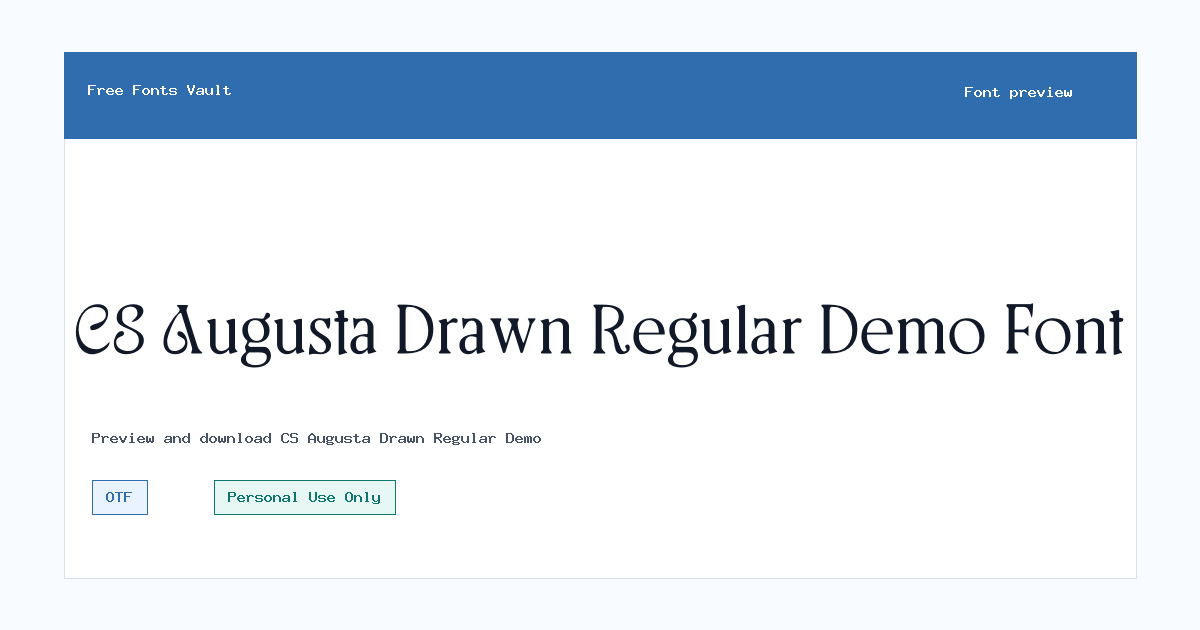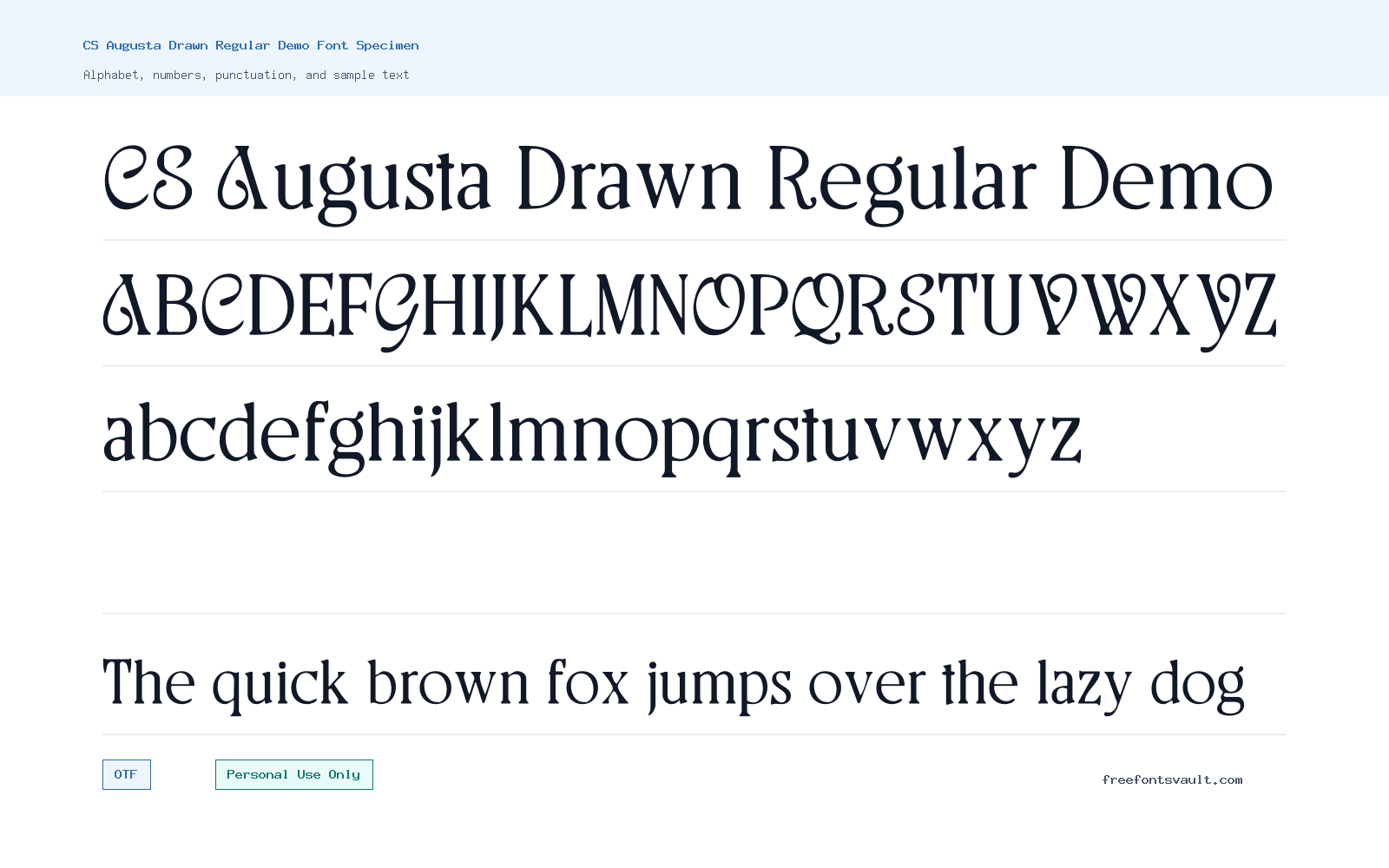
CS Augusta Drawn Regular Demo
CS Augusta Drawn Regular Demo font.
CS Augusta Drawn Regular Demo is a personal-use serif demo font with a hand-drawn feel. It is best suited for testing display ideas, short titles, logo drafts, posters, invitations, and visual mockups where a refined serif shape with a softer drawn edge can add character.
About CS Augusta Drawn Regular Demo
CS Augusta Drawn Regular Demo is an OTF font in a regular style and 400 weight. The name and license text identify it as a drawn serif demo, so the safest way to use it is as a display face rather than a long-reading text font. Its appeal is likely in the contrast between a traditional serif structure and a more handmade surface. That kind of design can work well when you want a headline to feel elegant but not too polished. Try it in larger sizes first, because drawn details usually become clearer when the letters have room to show their texture and rhythm.
For designers, this font is most practical in short settings: brand concept boards, logo sketches, packaging mockups, poster titles, social graphics, wedding or boutique-style layouts, and website hero text. Keep the wording concise and test the preview with the exact words you plan to use, especially if your project depends on tight spacing, initials, or all-caps settings. Demo fonts may have a limited character set or fewer typographic extras than a full retail family, so check punctuation, numbers, accents, and symbols before building a full layout around it. If you are preparing client work, paid branding, merchandise, advertising, or any other commercial output, treat the license limit seriously and obtain the proper commercial license from the rights holder.
- Drawn serif demo style, better for expressive display text than dense paragraphs.
- Single regular variant, making it simple to preview but less flexible than a full family with bold, italic, or multiple weights.
- Works best at headline and title sizes where the drawn serif character can remain visible.
- Logo concepts and wordmark drafts
- Packaging mockups for boutique or editorial-style projects
- Website hero headings and landing page previews
- Invitation designs and short decorative text
- Mood boards, brand exploration, and personal design experiments
Use CS Augusta Drawn Regular Demo where the text is short and the size is large enough for the drawn serif detail to show. Test uppercase and lowercase words in the preview before downloading, then check spacing around letters with strong shapes such as A, V, W, T, and Y. For logo work, try wider tracking and compare it against simpler serif or clean sans-serif companions. For posters and web mockups, pair it with a plain sans-serif for body copy so the drawn headline remains the focus. Avoid using it for long paragraphs, small captions, or interface text where clarity matters more than style.
Can I use it for body text?
It is better for display text such as titles, names, and short headings. For long reading, pair it with a clearer text font.
What should I pair it with?
Pair it with a quiet sans-serif or a simple readable serif. Let CS Augusta Drawn Regular Demo handle the headline while the companion font carries menus, captions, and body text.